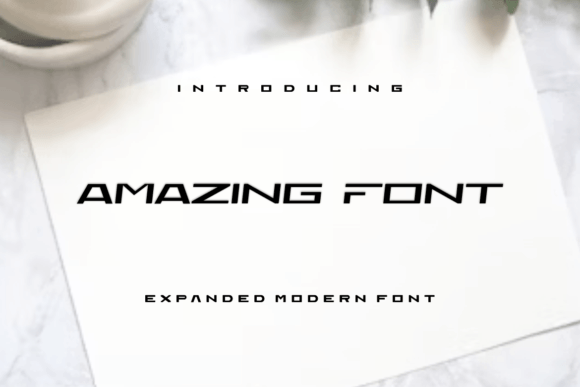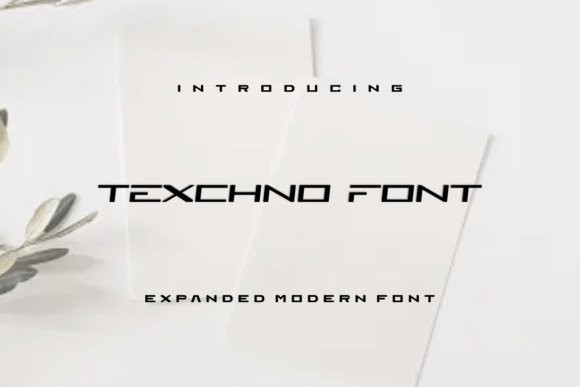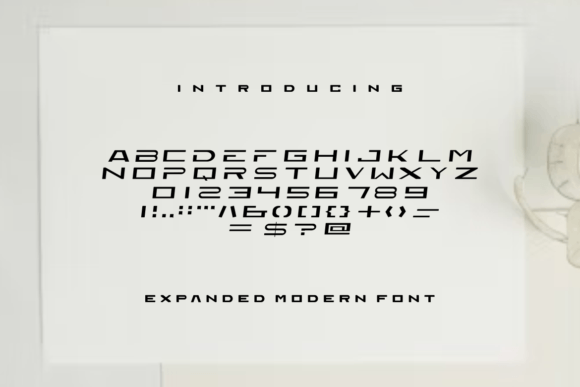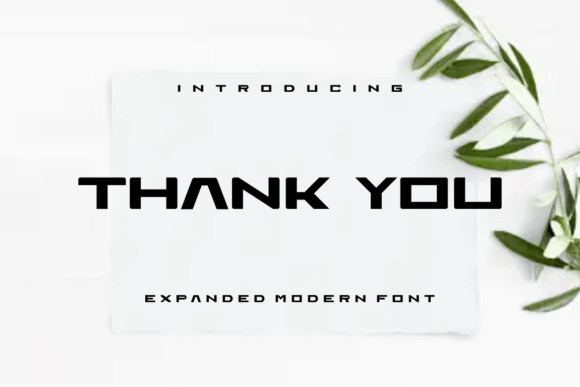
Introduction to Prezet Font
Have you ever been working on a creative project, pouring your heart and soul into it, only to realize that the font you’re using is just not doing it justice? You want something that will grab the attention of your audience, something that will make your message stand out. That’s where the Prezet Font comes in – a game-changing design resource that’s about to take your projects to the next level.
With its sleek and contemporary vibe, the Prezet Font is perfect for logos, headlines, and posters. Its expanded style gives it a bold and stylish look, making it a valuable addition to any designer’s toolkit. Whether you’re working on a high-quality brochure or creating a social media campaign, the Prezet Font is sure to make your words pop.
Key Features of Prezet Font
- High-quality design resource ideal for creative projects, offering a unique and stylish touch.
- Comes in a single weight, making it easy to use and customize for various design projects.
- Perfect for designers and artists seeking a modern and sleek design resource for their creative projects.
Honest Review: Prezet Font
As a designer, I’m always on the lookout for new and high-quality design resources to elevate my creative projects. The Prezet Font has been a game-changer for me, and I’m excited to share my honest review with you.
- ✨ Beautiful and unique typography: The Prezet Font offers a distinctive and elegant design that adds a touch of sophistication to any project.
- ✨ Transparent background: The font’s transparent background makes it easy to layer and combine with other design elements.
However, I do have a few limitations to mention:
- ⚠️ Limited character set: The Prezet Font only includes a limited character set, which may not be suitable for longer texts or formal documents.
- ⚠️ Not suitable for small font sizes: While the font looks great at larger sizes, it can become difficult to read at smaller font sizes.
Overall, I’m impressed with the Prezet Font and would highly recommend it to designers looking for a high-quality, unique font to add to their design arsenal.
Prezet Font is a high-quality, free download design resource ideal for creative projects that require a touch of elegance. With its transparent background, it’s perfect for overlaying on images or using as a standalone element in your design.
To get the most out of Prezet Font, experiment with different font sizes, colors, and styles to create a unique and eye-catching design. You can also combine Prezet Font with other design elements to create a cohesive and professional look.
Prezet Font is commonly used in creative projects such as logos, brochures, business cards, and social media graphics. Its high-quality design and transparent background make it an ideal choice for overlaying on images or using as a standalone element in your design.